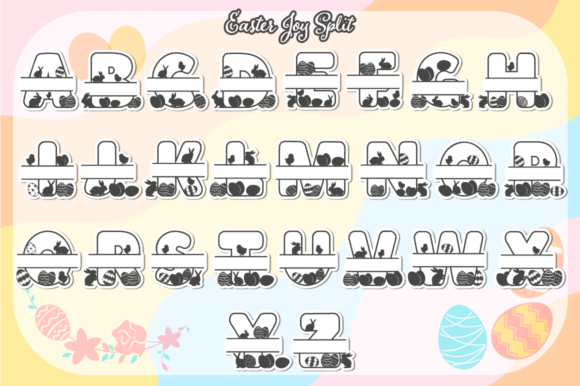
Easter Joy Split Font: A Handcrafted Delight for Crafters
Are you a crafter looking for the perfect font to add a touch of Easter joy to your DIY projects? Look no further than the Easter Joy Split Font, a handcrafted font designed specifically with crafters in mind. In this article, we’ll dive into the features and benefits of this unique font, and explore how it can elevate your crafting experience.
What is Easter Joy Split Font?
The Easter Joy Split Font is a carefully crafted font, created from scratch using a minimalist approach. With a focus on simplicity, each letter has been designed with the fewest possible points, ensuring seamless cutting and minimal difficulty. This thoughtful design makes it an ideal choice for crafters working with cutting machines, such as Cricut Design Space, Silhouette Studio, ScanNCut, and other major brands.
Optimized for Crafters
Crafters know that working with intricate designs can be time-consuming and frustrating. That’s why the Easter Joy Split Font has been optimized for use with popular cutting machines. The font’s streamlined design reduces the number of points in each letter to a minimum, resulting in faster cutting times and less hassle. Whether you’re a seasoned pro or just starting out, this font is designed to make your crafting experience more enjoyable and efficient.
Key Features of Easter Joy Split Font
- Handcrafted from scratch: Each letter has been carefully designed and crafted to ensure a unique and personal touch.
- Minimalist approach: With as few points as possible, this font ensures smooth cutting and minimal difficulty.
- Fast cutting times: Reduced points in each letter result in faster cutting times, saving you time and effort.
The Easter Joy Split Font offers a range of benefits for designers and crafters. With its unique, handcrafted design, this font adds a personal touch to any project. The optimized design ensures seamless cutting, reducing frustration and saving time. Whether you’re creating Easter-themed decorations, gifts, or cards, this font is sure to bring a touch of joy and personality to your work.
Tips for Using Easter Joy Split Font
| Font Name | Easter Joy Split Font |
| Author | Anastasia Feya |